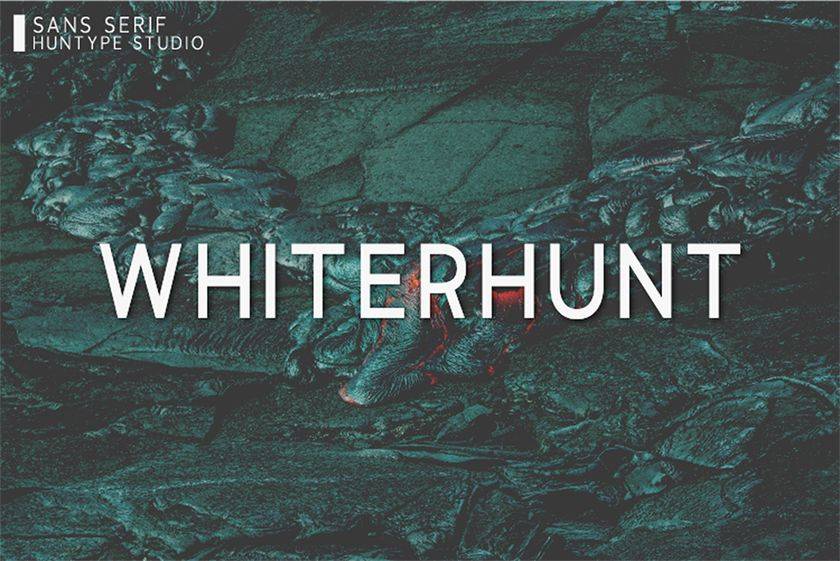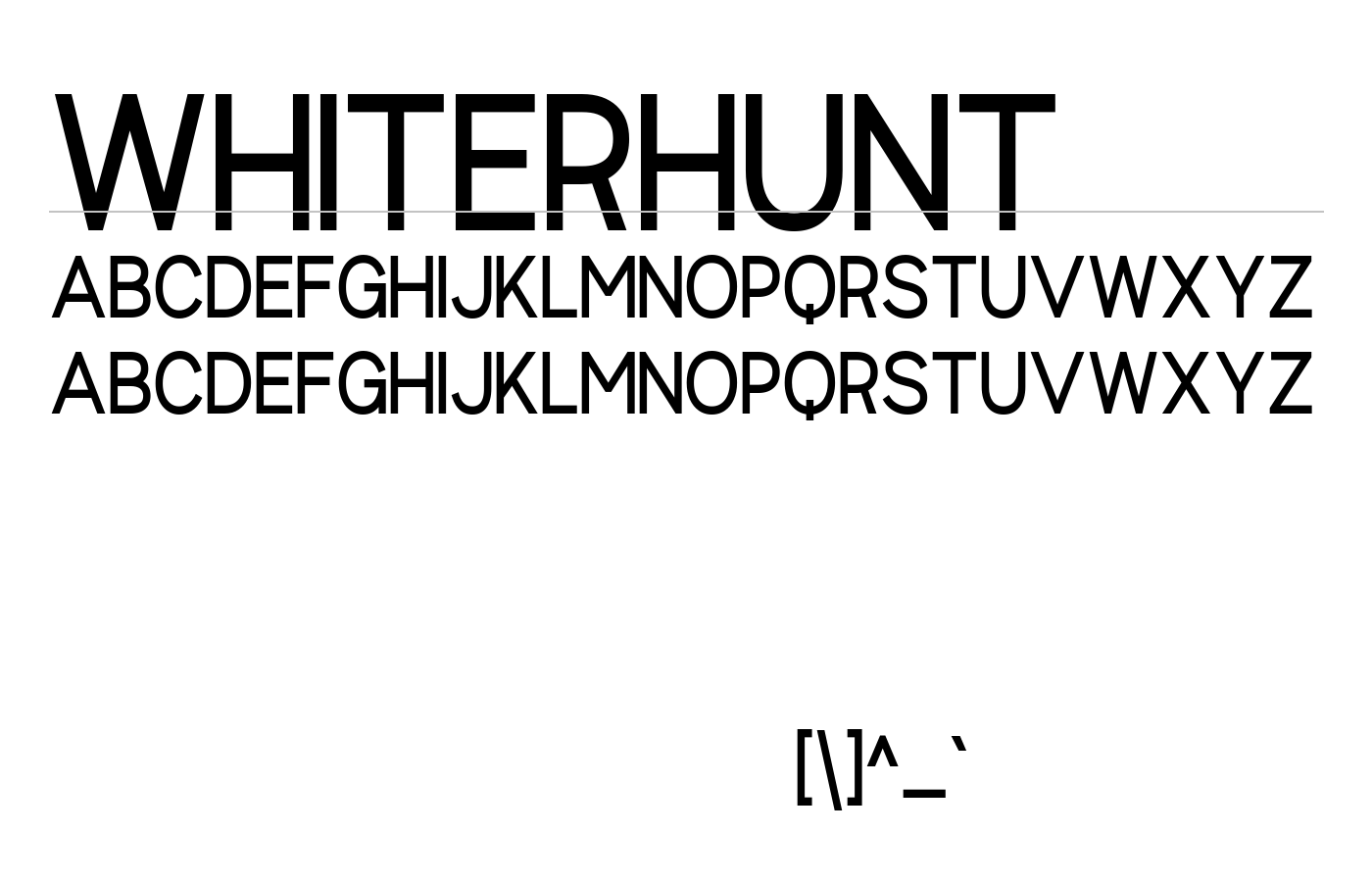
Whiterhunt is a sleek, modern sans serif font characterized by its tall, narrow letterforms and consistent stroke weight, giving it a clean and refined appearance. Its geometric shapes and high x-height enhance readability while maintaining a stylish, minimalist feel, making it ideal for contemporary branding, headlines, and editorial design where clarity and elegance are key. This font’s versatility and sophisticated look suit projects in fashion, technology, and modern corporate identities.
Whiterhunt Font